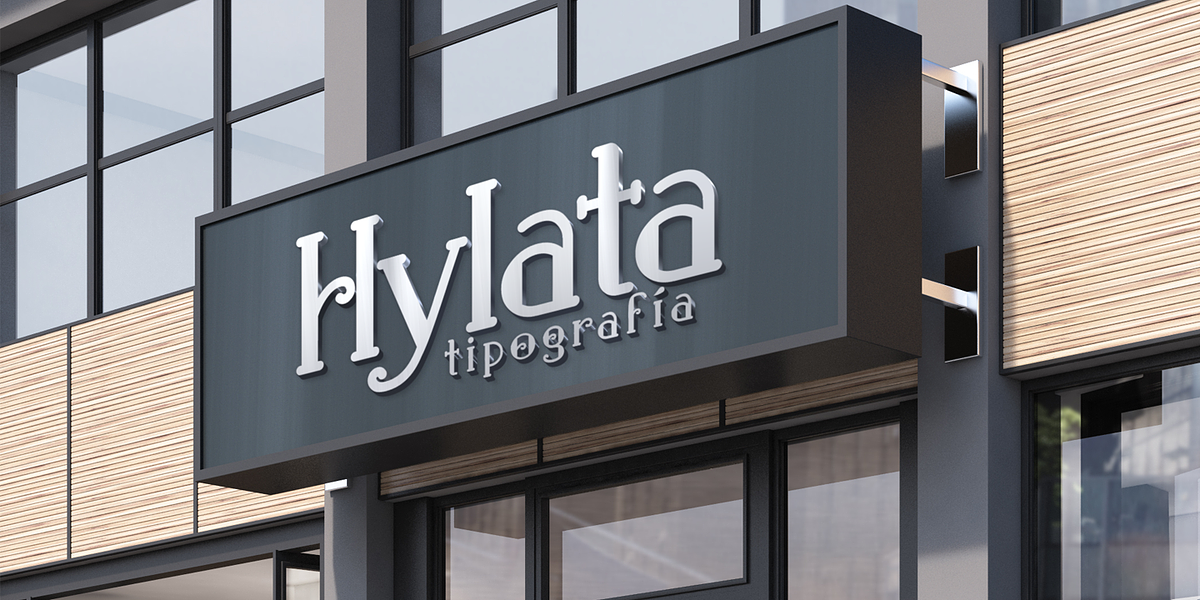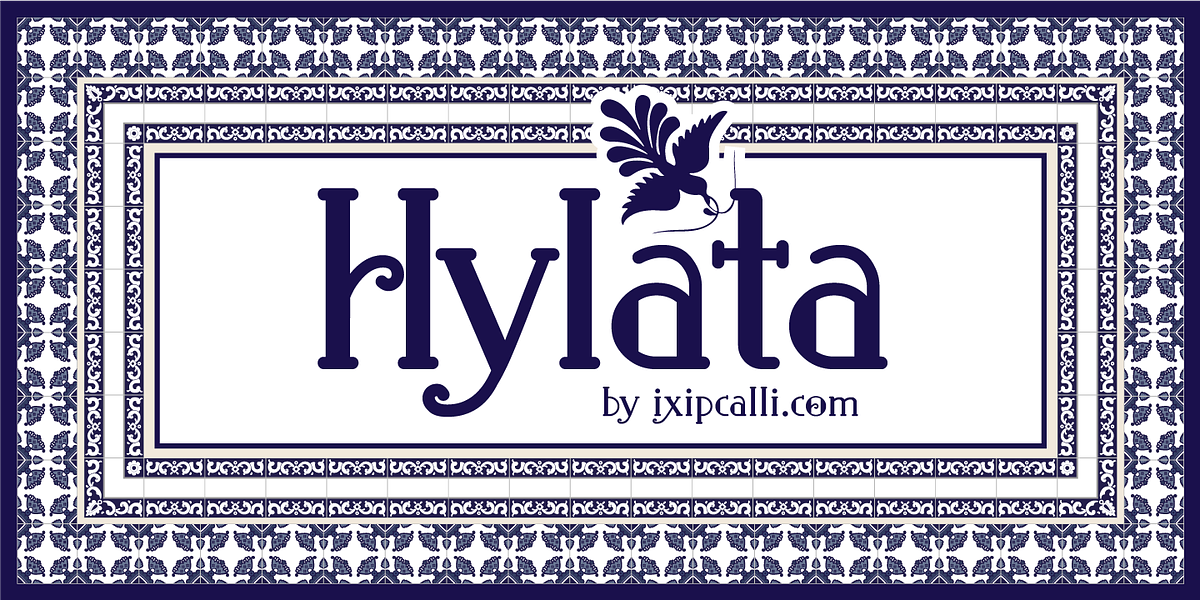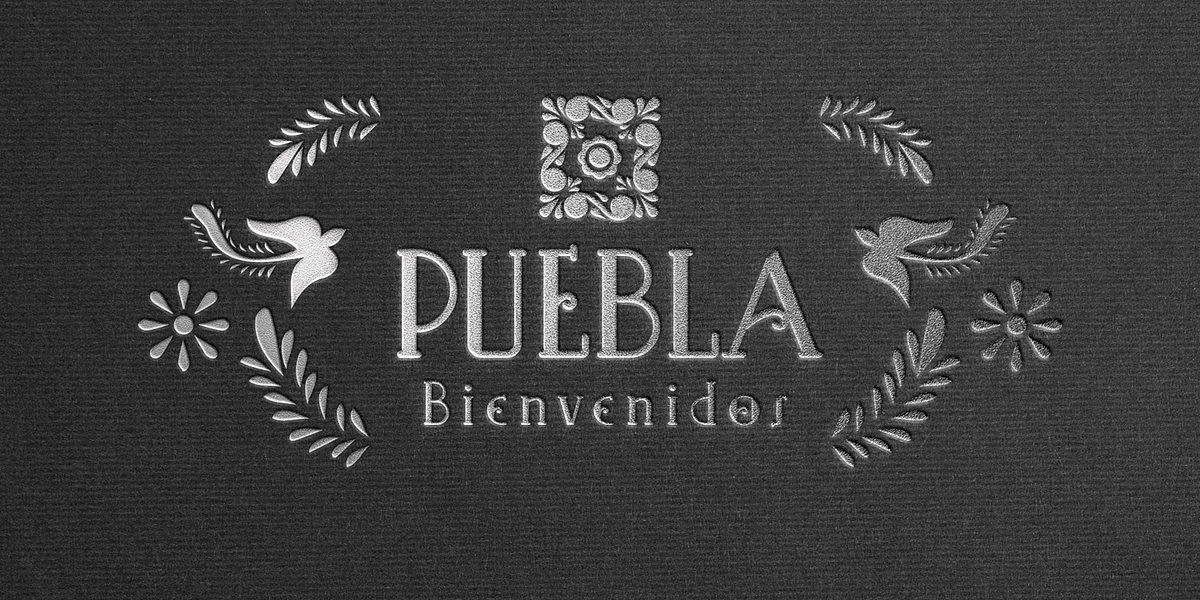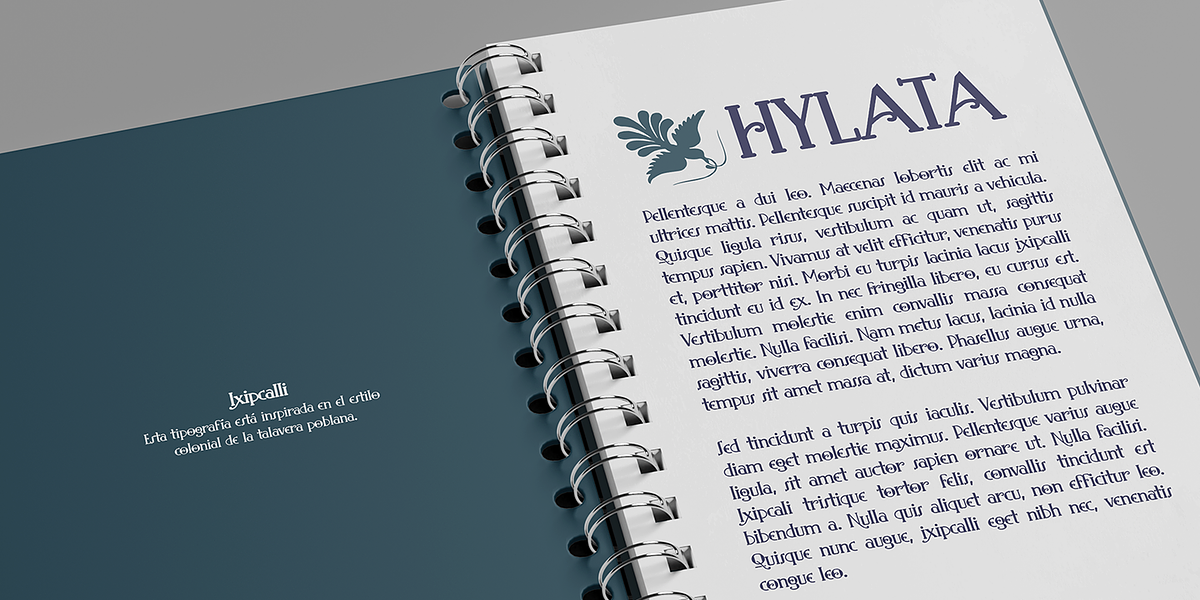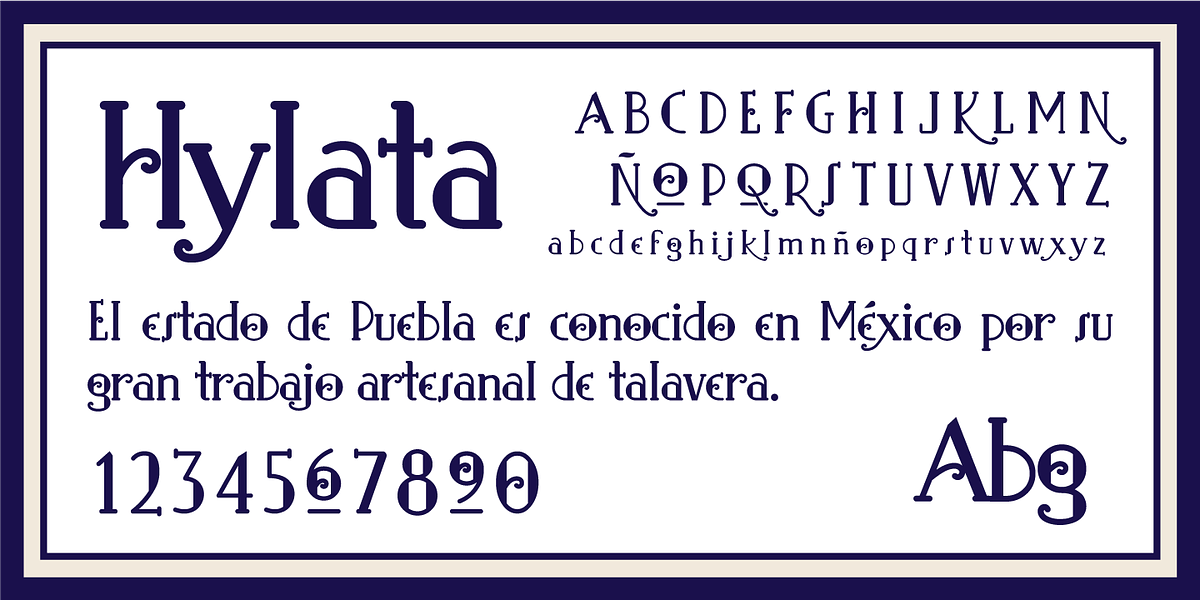
Hylata
Hylata is a display serif typeface inspired by the Mexican colonial style of the 1950s, particularly from the state of Puebla. Its design draws heavily on the characteristic talavera crafts found in the region. The typography features 'blacksmith' type styles, lending it an authentic provincial feel.